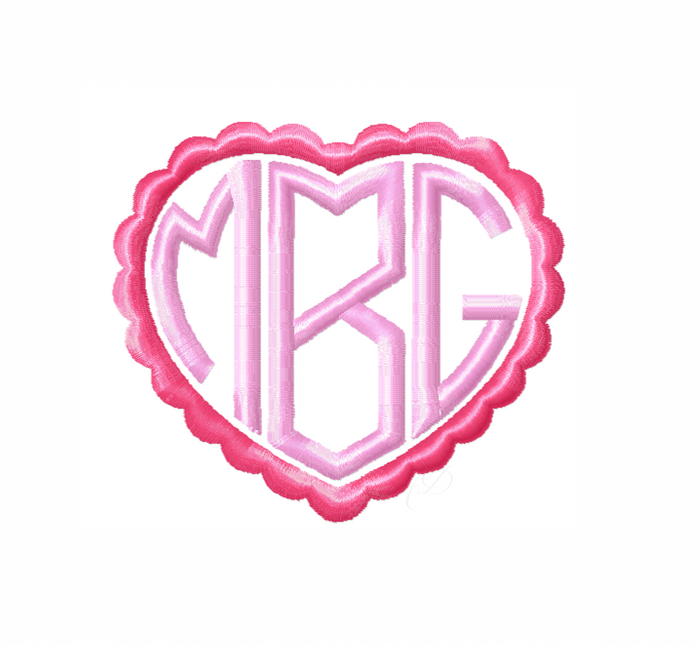
Satin Heart Monogram Embroidery Font in Large Size
Satin Heart Monogram Embroidery Font - Large Size
Transform your embroidery projects with the Satin Heart Monogram Embroidery Font. This versatile machine font includes a collection of 10 sizes, offering exceptional value and variety for your creative needs. With 78 letters available in each size, you can easily personalize your designs.
The included sizes are: 2.5", 3", 3.5", and 4". Notably, the 3.5" and 4" sizes feature unique fill stitches for hearts and diamond accents on select letters, adding character to your work.